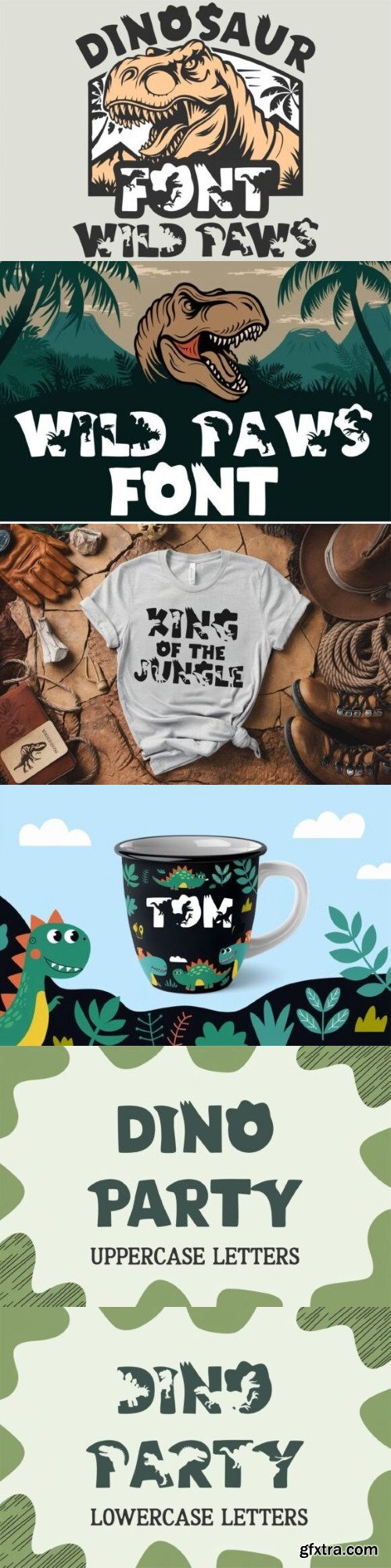
Dinosaur Wild Paws Font
Wild Paws Dinosaur Font is a bold prehistoric typeface featuring dinosaur silhouettes inside each letter. Perfect for Cricut, Silhouette, kids’ shirts, birthday decorations, adventure books, and crafting projects. Includes uppercase letters, numbers, and symbols. Comes in OTF, TTF, SVG, PNG, EPS, and DXF formats. Compatible with Canva, Photoshop, Illustrator, and Procreate.